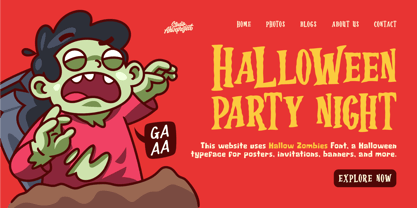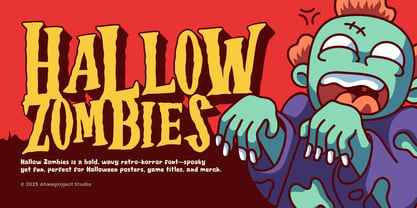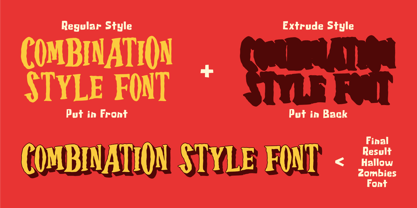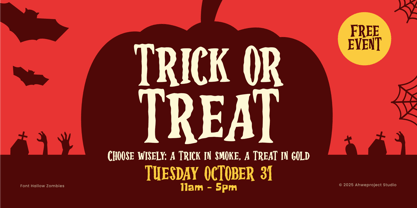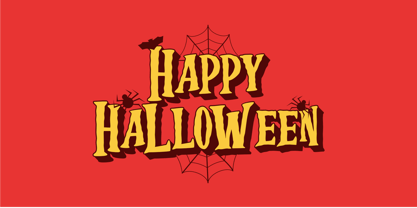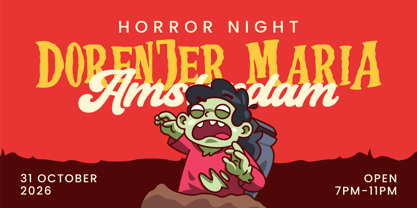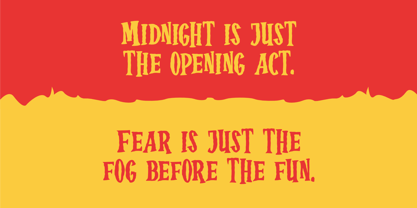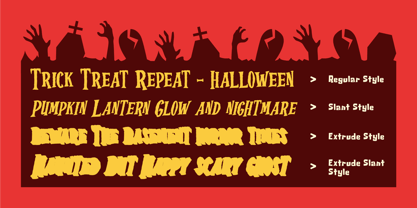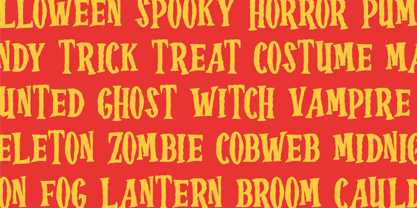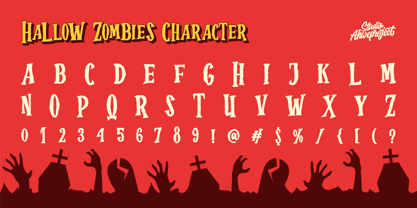
Hallow Zombies
von ahweproject
Die Schriftfamilie Hallow Zombies wurde von Dida Ahluddin entworfen und von ahweproject veröffentlicht. Hallow Zombies enthält 4 Stile und Familienpaketoptionen. Mehr über diese Familie
Hallow Zombies is a bold, wavy retro-horror display font—spooky yet fun. Its jagged, cartoon-zombie letterforms grab attention instantly, making it perfect for Halloween posters, game titles, logos, stickers, packaging, YouTube thumbnails, party invites, and merch. Heavy weight = maximum impact and clear readability from a distance. Ideal for creators and brands who want a playful, scary, and memorable look.
Includes A–Z, numerals, and basic punctuation. Bring your Halloween visuals to life—uh… back to life—with Hallow Zombies.
• Uppercase & lowercase
• Numbers and punctuation